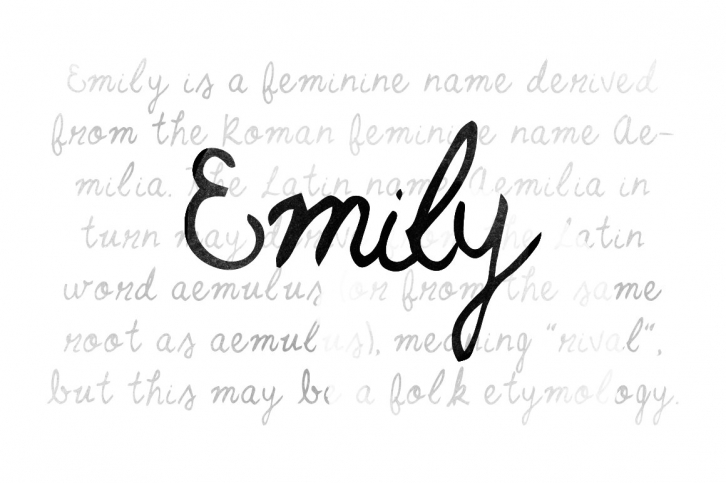
Script font named Emily why? because this font looks like Emily I dont know why i use girl name for my fonts but i love it! So come on give it a try to Emily on your next creation, project or letter :)